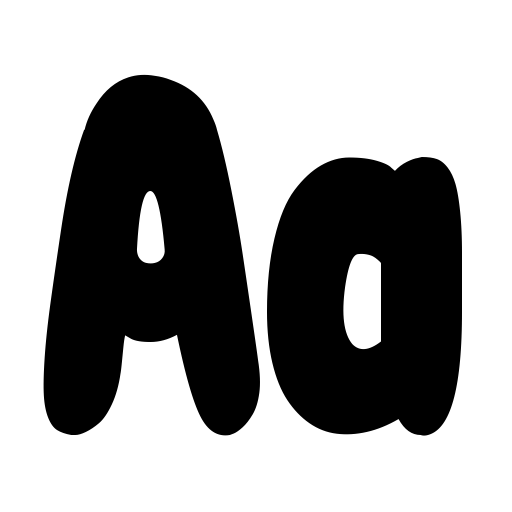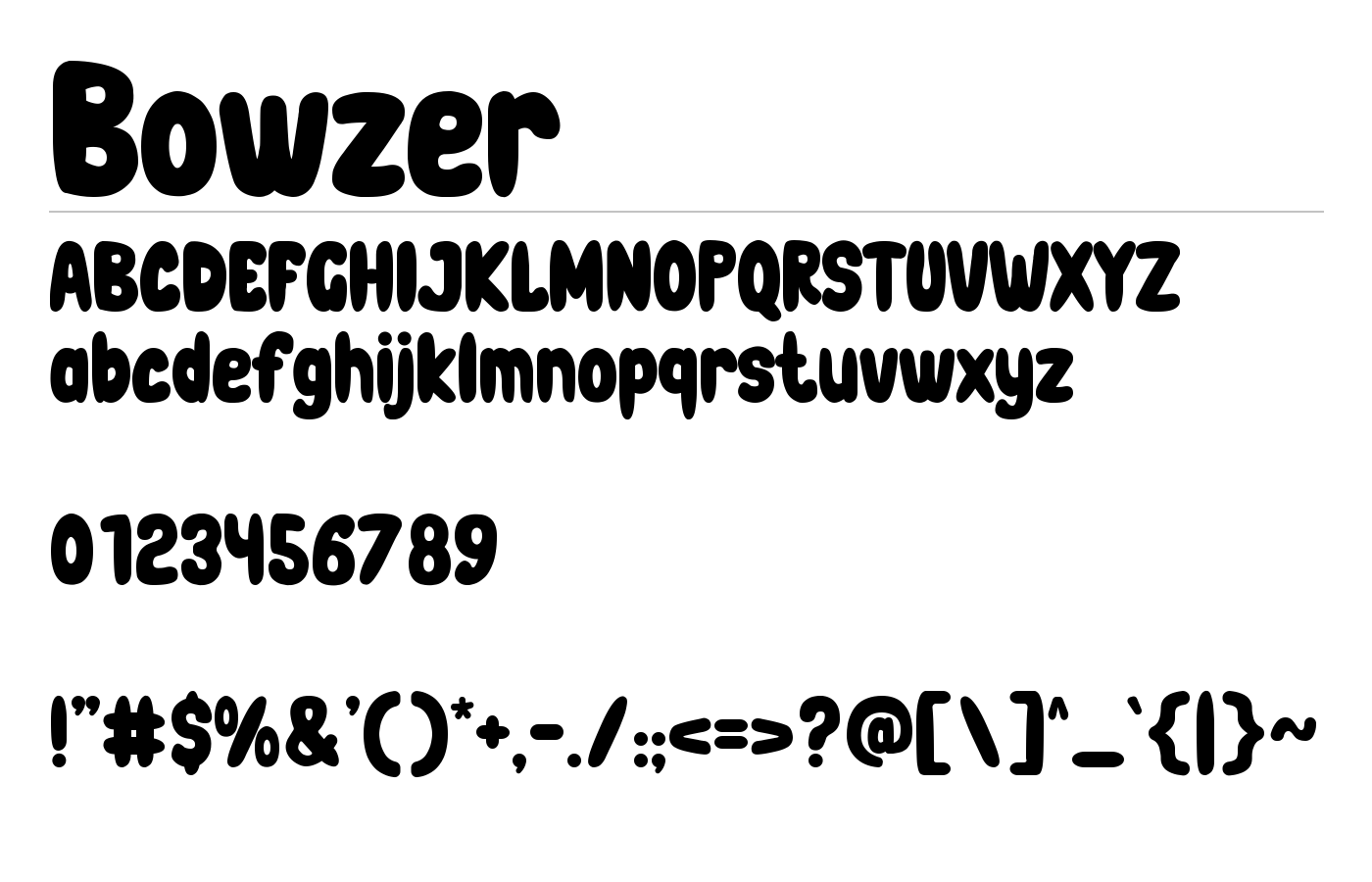
Bowzer is a bold, rounded sans serif font with a playful and friendly personality. Its thick, soft letterforms and wide proportions create an inviting, casual feel, making it ideal for fun, approachable branding, children’s materials, or any design seeking a warm and cheerful tone. This font works best in headlines, posters, and logos where a bold, eye-catching statement is needed.
Bowzer Font
About Bowzer Font